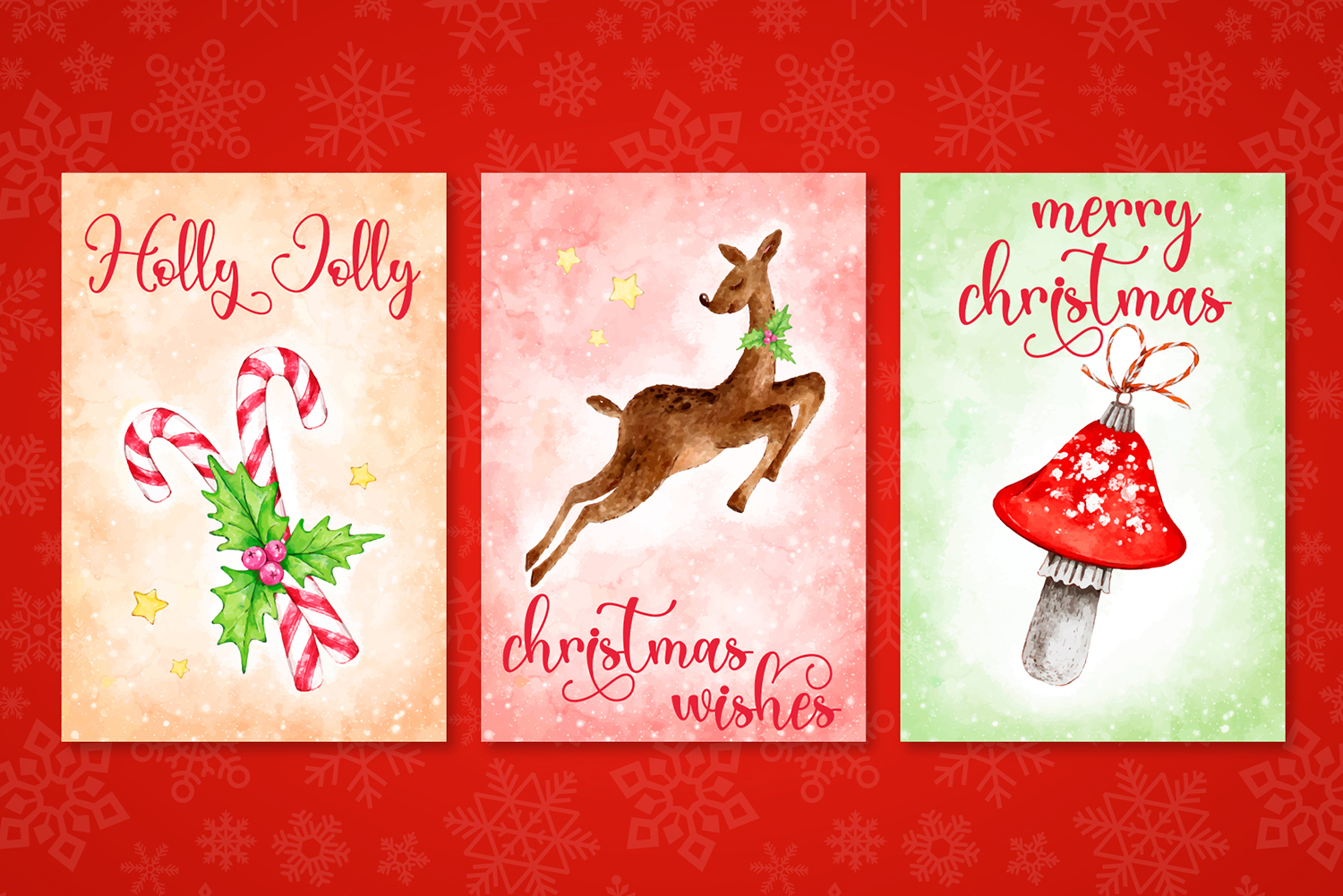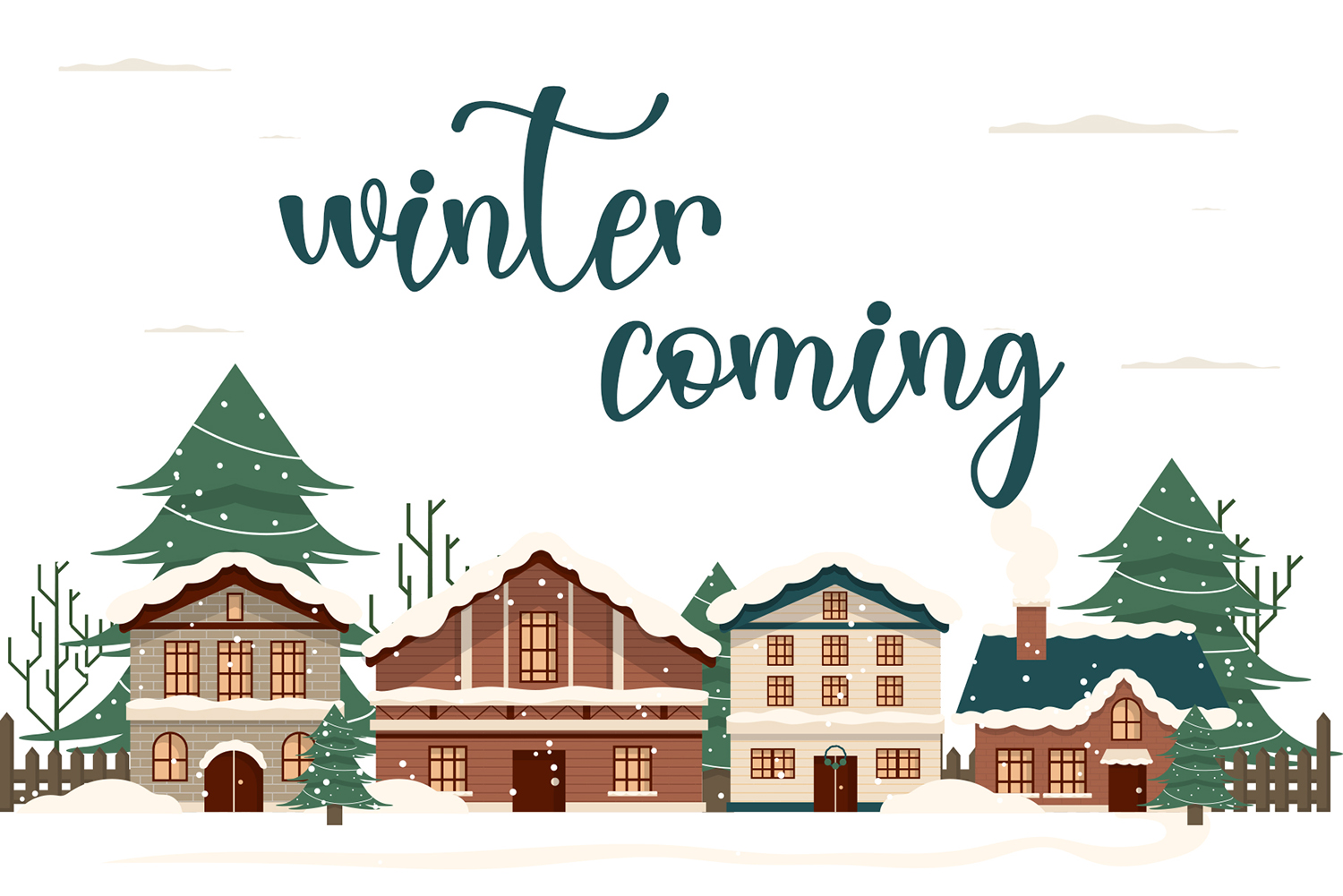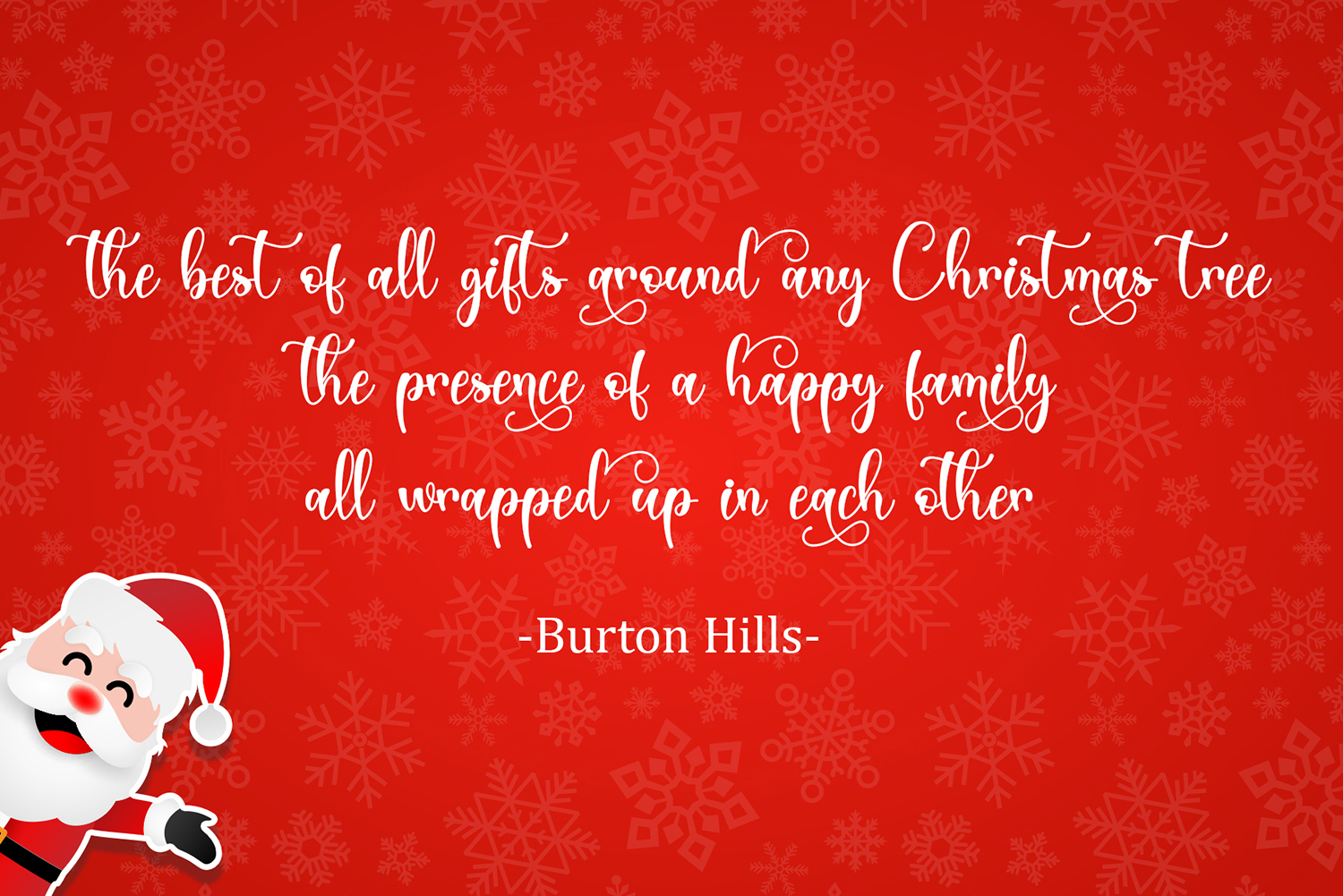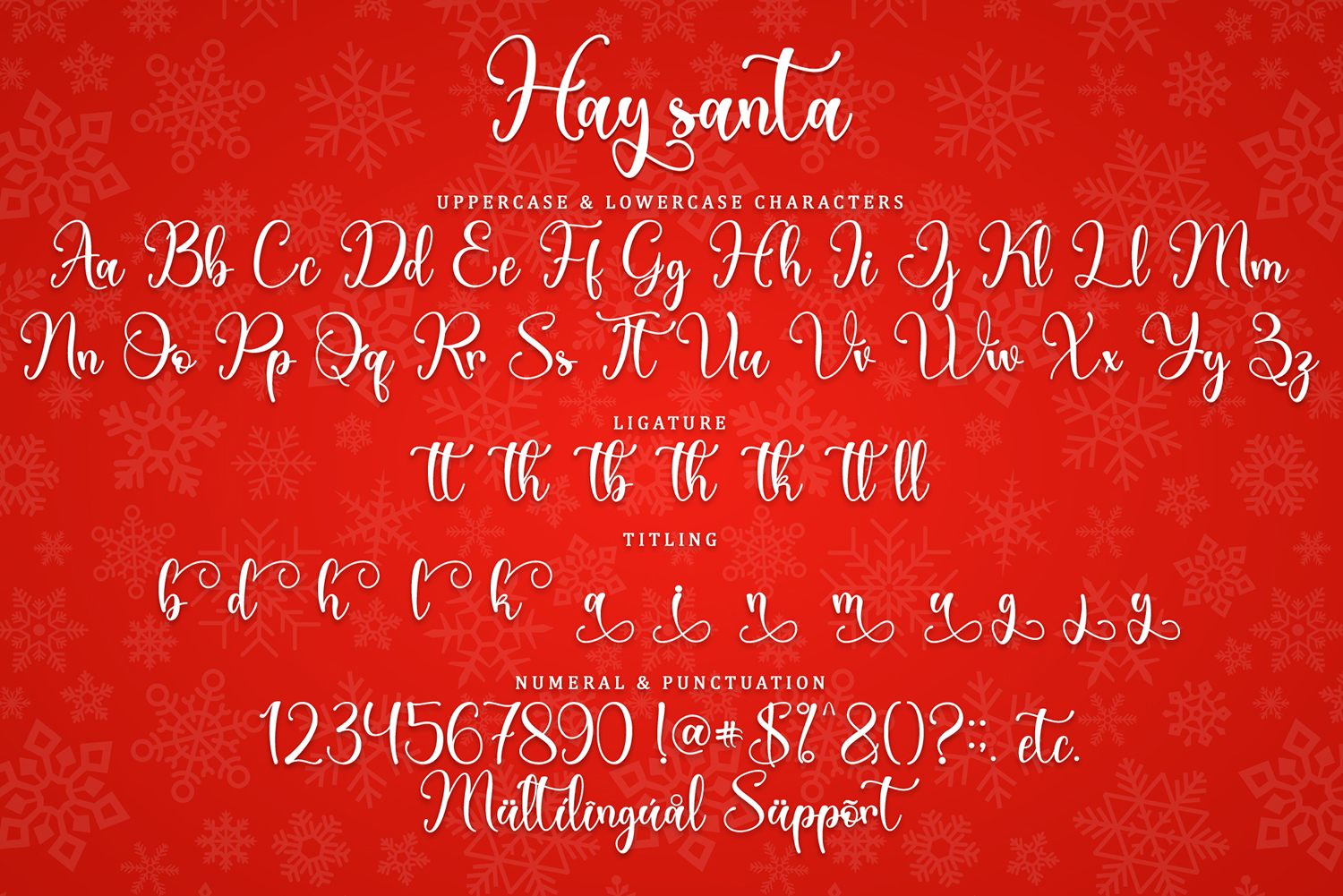
Hay Santa Free Font
Hay Santa Free Font presents a timeless and delightful handwritten font, making it the optimal choice for crafting captivating logos, branding elements, and memorable quotes. This free typeface was designed by a talentedΒ Alif Ryan Zulfikar. If you like it don’t forget to check out the full version.